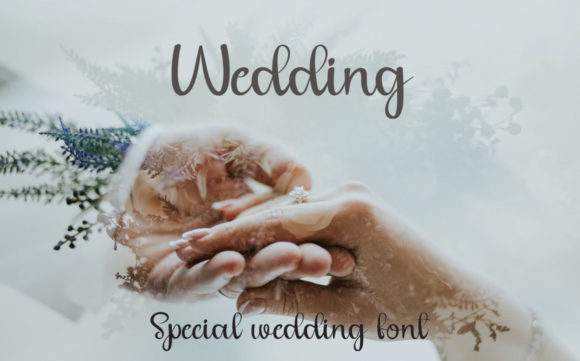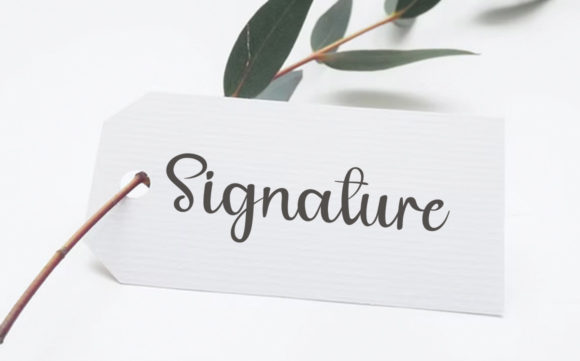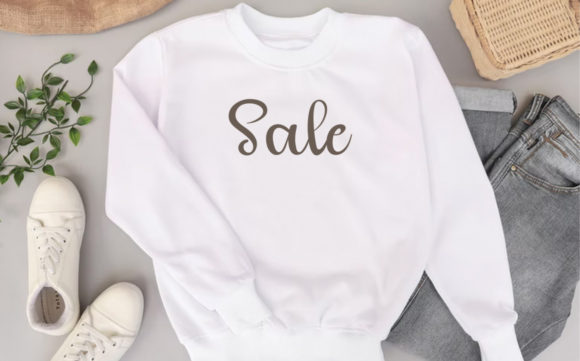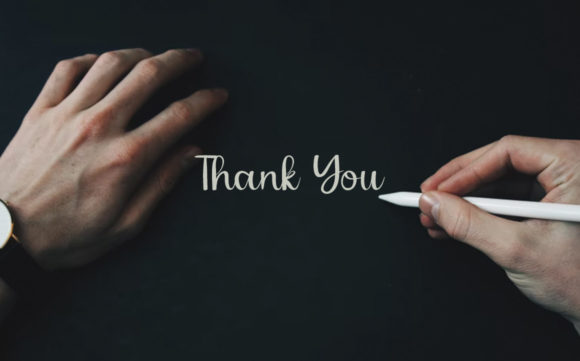
The Art of Elegant Typography: Unlocking the Power of Caligraphy Font
You’ve just landed a new project that requires a touch of sophistication and elegance. As you brainstorm ideas, you find yourself flipping through design inspiration boards, searching for the perfect typography to elevate your work. It’s in these moments of creative contemplation that you stumble upon the beauty of Caligraphy Font. This stunning, handwritten font is more than just a typeface – it’s a statement piece that adds a layer of sophistication to any design.
Whether you’re a seasoned designer or just starting out, Caligraphy Font is an invaluable asset to have in your toolkit. Its flowing lines and elegant curves make it perfect for a wide range of applications, from wedding invitations and social media logos to product packaging and labels. With Caligraphy Font, you can add a touch of luxury and refinement to any project, making it a valuable addition to your design arsenal.
Caligraphy Font Key Features
- Font Style: Elegant, cursive script with swashes and flourishes, ideal for formal and creative applications.
- Unique Characteristics: Features intricate details, such as ligatures, swashes, and ornaments, which can be used to add a touch of elegance and sophistication to designs.
Review: Caligraphy Font
Overall, I’d say the Caligraphy Font has some great qualities that make it a solid choice for certain projects. ✨ One of its strongest points is its elegance and sophistication – the flowing lines and ornate details give it a high-end feel that’s perfect for luxury brands or special occasions. ✨ The font is also highly customizable, with a range of weights and styles to choose from, making it easy to tailor to your specific needs.
However, there are a few limitations that should be taken into account. ⚠️ One of the main issues is its readability – the intricate details and flourishes can sometimes make the text difficult to decipher, especially at smaller font sizes. ⚠️ Additionally, the font may not be the best choice for projects with limited space or a need for quick, easy reading.
- Elegant and sophisticated design
- Highly customizable with various weights and styles
- Perfect for luxury brands or special occasions
- Difficult to read at smaller font sizes
- May not be suitable for projects with limited space or quick reading needs
Overall, the Caligraphy Font is a solid choice for projects where elegance and sophistication are key. While it may have some limitations, its versatility and customization options make it a worthwhile investment for designers looking to add a touch of luxury to their work.
Tips for Getting the Most Out of Calligraphy Font
Use calligraphy font for headings and titles to add a touch of elegance.
Combine calligraphy font with other fonts to create a unique and eye-catching design.
Branding and logo design.
Special occasion cards and gifts.
Alternatives to Caligraphy Font
Carolyna Pro is a modern calligraphy font that is highly customizable. It is ideal for wedding invitations, event branding, and any project that requires a touch of elegance. Compared to Caligraphy Font, Carolyna Pro has a more refined and sophisticated look, making it suitable for high-end projects.
Great Vibes is a beautiful, handwritten font that is perfect for creating a casual and friendly atmosphere. It is great for use in social media graphics, advertisements, and blog posts. Compared to Caligraphy Font, Great Vibes has a more relaxed and approachable feel, making it ideal for projects that require a conversational tone.